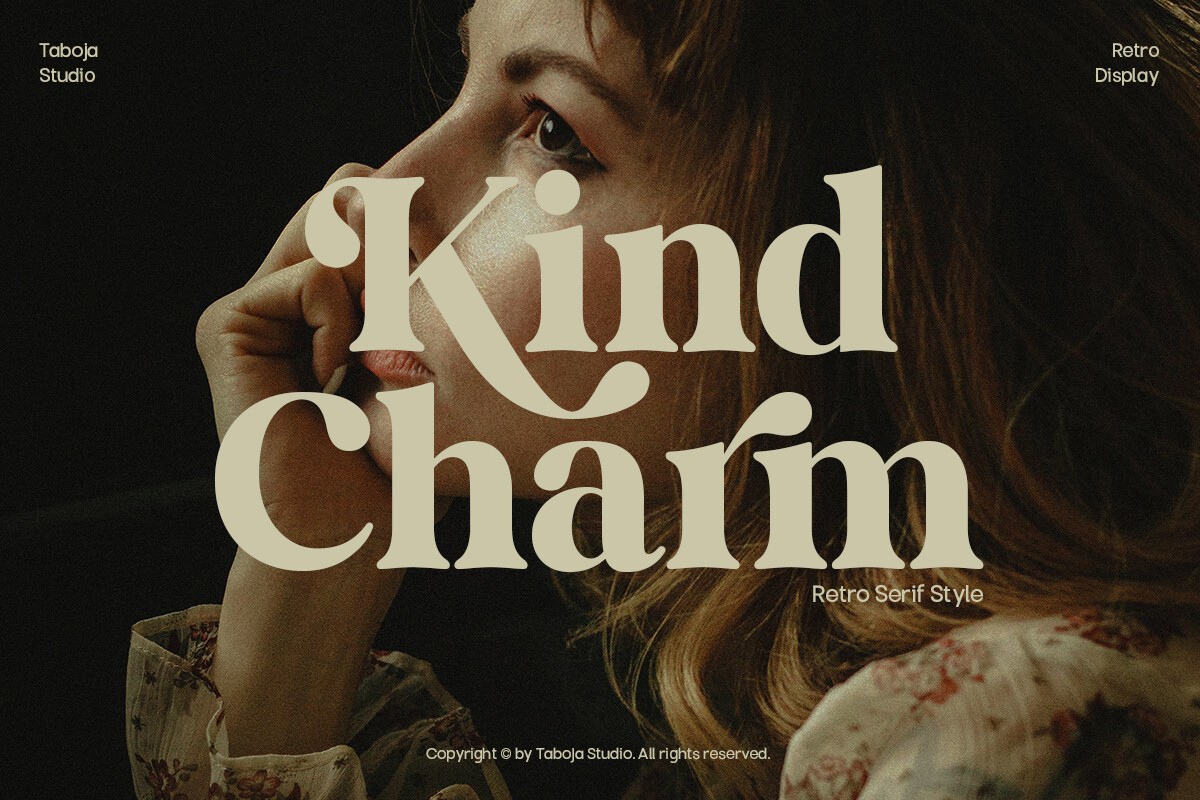
Kind Charm Font
Kind Charm Font is ideal for children's charity organizations, compassionate wellness centers, gentle parenting resources, kindness education programs, heartwarming greeting card designs, nurturing childcare facilities, therapeutic counseling services, community volunteer initiatives, positive psychology practices, and wholesome family-friendly brand identities. This heartwarming typeface brings gentle kindness and authentic charm to any compassion-focused design project.
Kind Charm Font is exciting because it embodies the gentle warmth and genuine compassion that makes the world a more loving place, featuring soft, approachable letterforms that radiate kindness and create immediate feelings of comfort, safety, and emotional warmth. Its charming character instantly conveys empathy, genuine care, and the authentic human goodness that inspires acts of kindness and builds meaningful connections between people.
Kind Charm Font family includes Light, Regular, Medium, and Bold weights with gentle alternates, compassionate flourishes, heartwarming ornamental elements, and kindness symbols that enhance the caring aesthetic, providing compassion designers with tender tools for creating typography that promotes kindness and celebrates the beautiful power of human empathy and genuine care.
Community wellness designers love Kind Charm Font for its exceptional ability to convey authentic kindness and emotional warmth through tenderly crafted letterforms. The font's gentle character and caring details create immediate associations with volunteer work, charitable giving, and the beautiful human capacity for empathy that makes communities stronger and helps people feel genuinely cared for and valued.
The design philosophy behind Kind Charm Font celebrates the transformative power of kindness and the fundamental human need for compassion, understanding, and genuine care that creates healing and builds stronger communities, making it particularly effective for charitable organizations, wellness programs, and community initiatives that focus on spreading kindness and emotional support. Care teams working on compassionate programs find this font essential.
Whether used for children's charities, community wellness programs, or kindness education initiatives, Kind Charm Font delivers the perfect combination of gentle warmth and authentic compassion. Its caring appeal and heartfelt charm make it an indispensable choice for organizations that promote kindness, support emotional wellness, and celebrate the beautiful human capacity for genuine care, empathy, and community compassion.